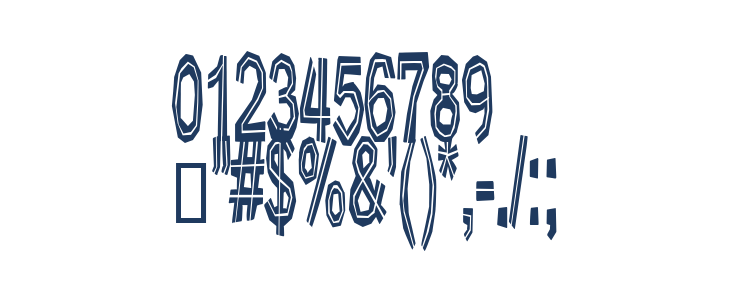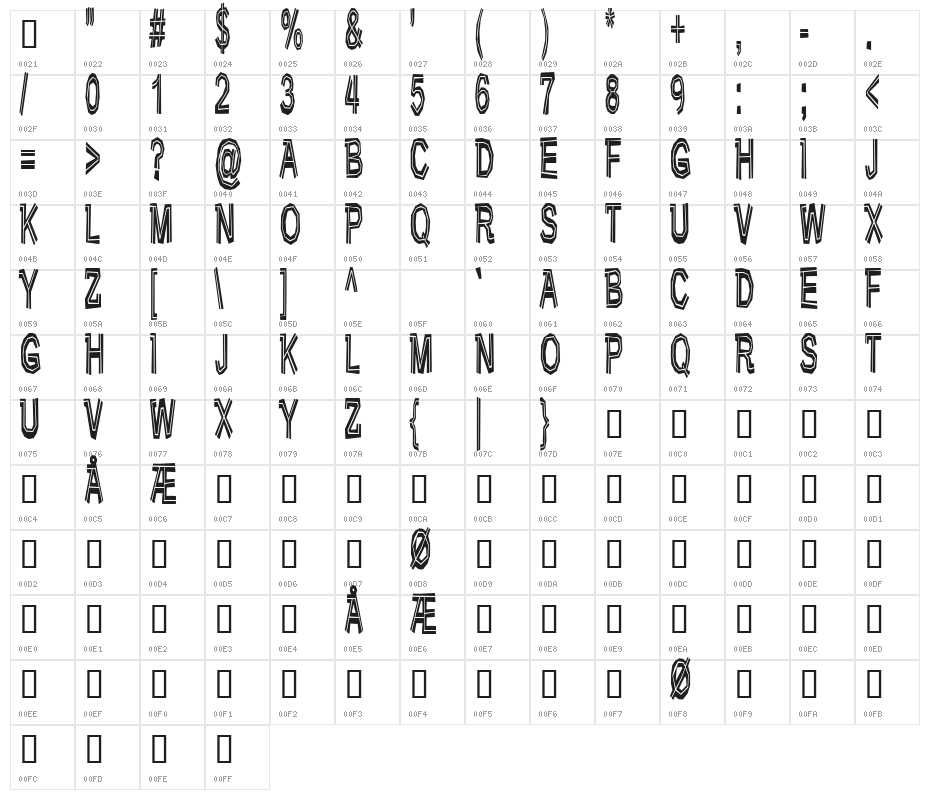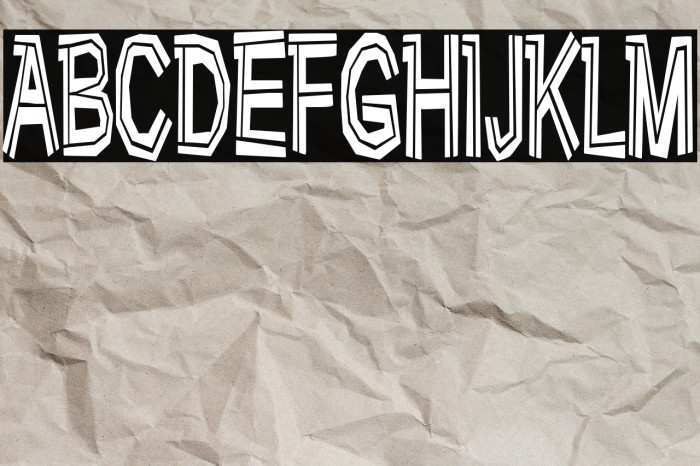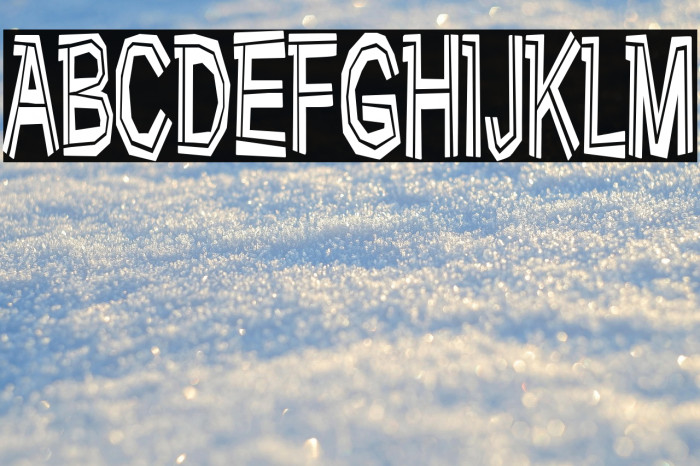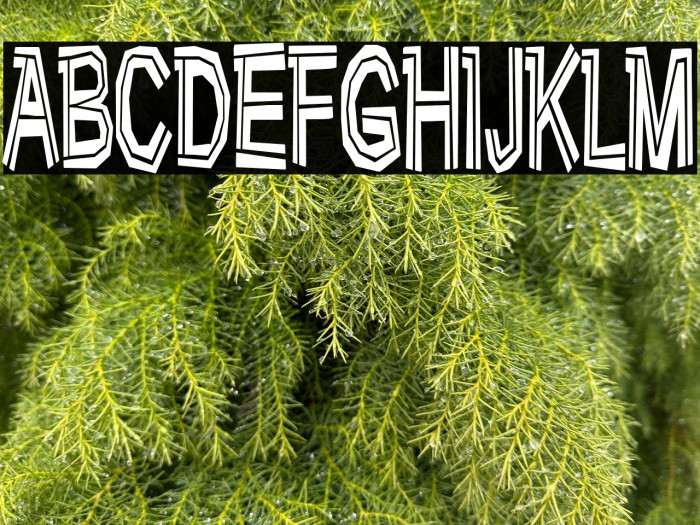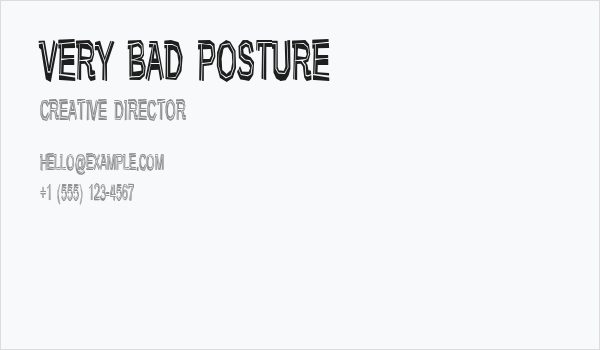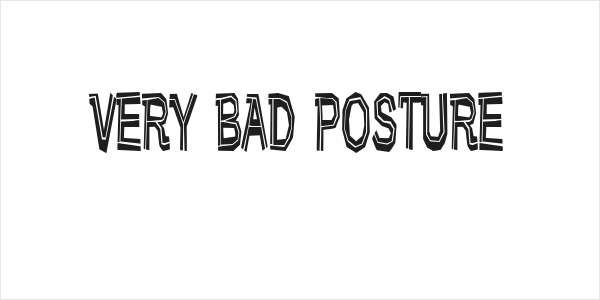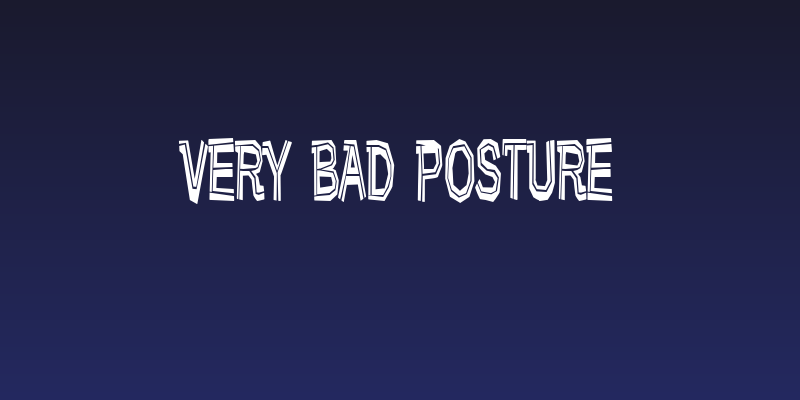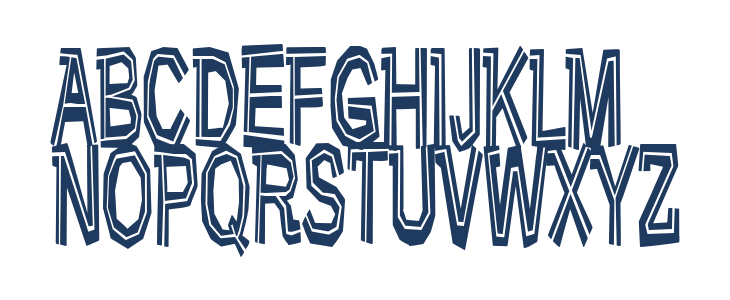
Very bad posture Font
Very bad posture Description
This font exhibits a bold and edgy style with a distinctly angular and geometric design. Each character is outlined with a thick, black stroke, creating a striking and impactful appearance. The letters are slightly irregular, giving them a hand-drawn, dynamic feel. The uppercase and lowercase letters maintain a consistent style, with sharp edges and a sense of movement. Numbers and special characters follow the same design principles, ensuring a cohesive look across all glyphs. This font is perfect for projects that require a bold statement and a modern, artistic touch.
| Proposed Projects | Ideal for posters, album covers, streetwear branding, and modern art projects. |